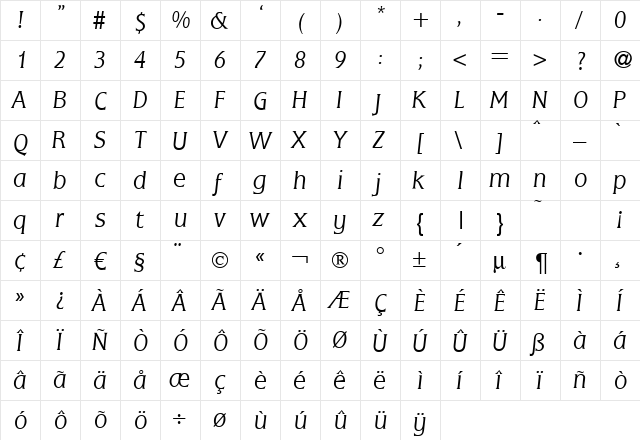
Fleming-Light Italic Font Preview
Design Context for Fleming-Light Typeface
Fleming-Light takes a measured approach to typography — its balanced proportions and neutral character make it a reliable workhorse for both digital and print work. The dynamic lean of this cut emphasises speed and emphasis in any layout. Its slender proportions lend an understated elegance to any composition.
Pro Tip: Try Fleming-Light for annotation and caption copy alongside an upright companion — the contrast in angle creates a dynamic but ordered typographic system.